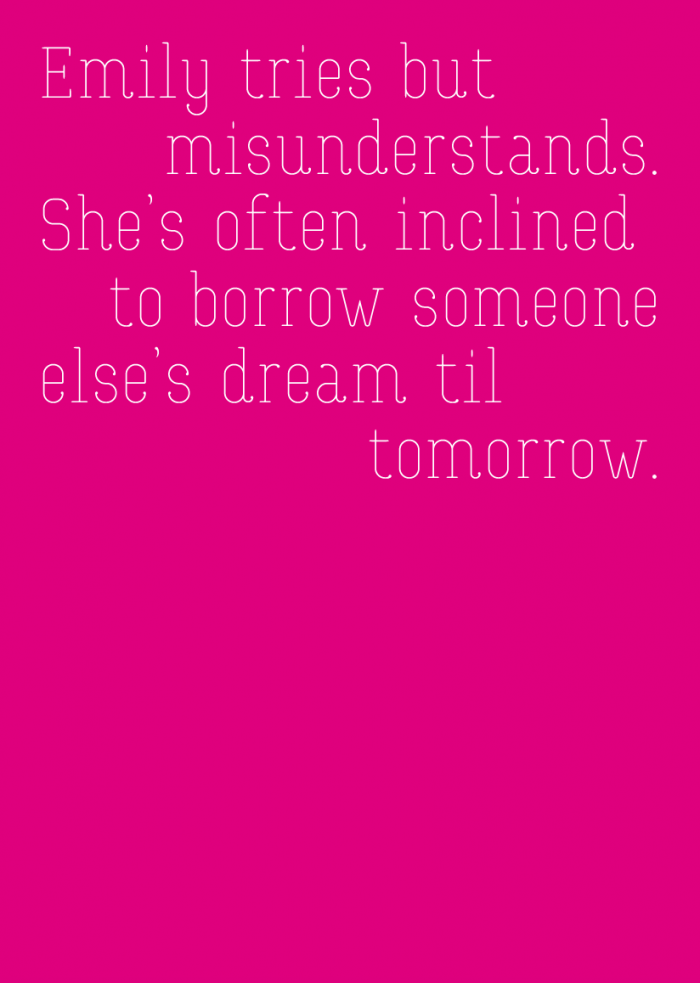
• Named for an early Pink Floyd song, Emily Play is a playful (sic!) display typeface which is rounded and seriffed.
Umm... You left in extra height... Next time you create a sample, make sure to resize it...
I'm pretty sure it's intentional ;)
Stylish, elegant with a touch of 60s playfulness and experimentation.
The music so matches the imagery .......
Congratulations! FontStruct Staff have deemed your FontStruction worthy of special mention. “Emily Play” is now a Top Pick.
10/10+♥
this is awe5ome!
Clean, and great detail.
Where did the pixel shapes go
Layne,
I think you have come up with a nice idea and a great concept for an elegant and playful serif. Maybe you could develop the "diagonals" of K and k a bit further. Could the rounding be reduced a bit in favor of a slope? (A compromise between x and k?) I do not understand the x-problem.
And: I like the nice sample for this nice Fontstruction.
@Se7enty-Se7en. Getting the diagonals of letters such as X to line up exactly is a hard thing to do, if you want to make it pleasant to look at. Especially in fine line typefaces. For optical reasons, it looks better to offset the diagonals a little. In a bold typeface, you could hide this in the thickness of the lines, but when using fine lines, you may have to use connections such as this.
Thanks for all your feedback. @beate: I see what you mean and will try and work on it.
Thanks to CMunk for the explanation... Generally I think that weirdness is a great thing for glyphs. We're pushing the boundaries of how a glyph can look like and still fit into the general image of the typeface.
@Haapsalu: I'm not sure what you mean exactly...
I bet Haapsalu wondered how smooth "Emily Play" looks at the maximum size, wow, well done! (as always^^)